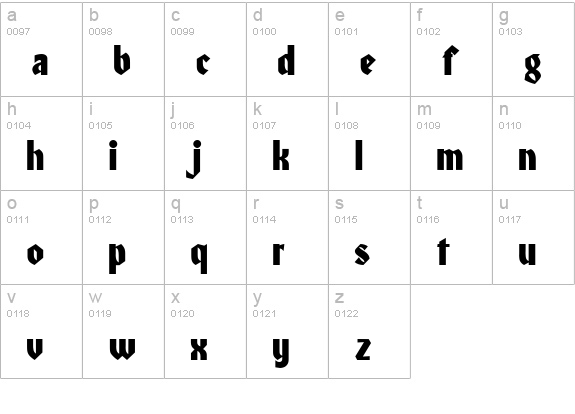
Heidelberg Font Details
Heidelberg is a stunning and versatile font that embodies elegance and sophistication. Its timeless design is perfect for a wide range of projects, from elegant invitations to professional branding materials. With its clean lines and balanced proportions, Heidelberg exudes a sense of refinement and class. But what sets Heidelberg apart is not just its impeccable aesthetics - it is also the fact that it is available for free! Yes, you read that right. This exquisite font can be freely downloaded from FontsMarket.com, allowing you to enhance your designs without any cost. Whether you are a professional graphic designer or simply someone looking to add a touch of style to your personal creations, Heidelberg is the ideal choice. Its wide range of weights and styles provides endless possibilities for creative expression, ensuring that you can find the perfect fit for any project. The versatility of Heidelberg is truly remarkable. From elegant headlines to graceful body text, this font effortlessly adapts to any typographic need. Its legibility and readability make it a reliable choice for both print and digital designs, ensuring that your message will always be clear and impactful. Heidelberg is not just a font, it is a statement. Its timeless beauty and accessibility make it a must-have for any designer's toolkit. So why wait? Head over to FontsMarket.com and download Heidelberg for free today. Unleash your creativity and let Heidelberg elevate your designs to a whole new level of sophistication.